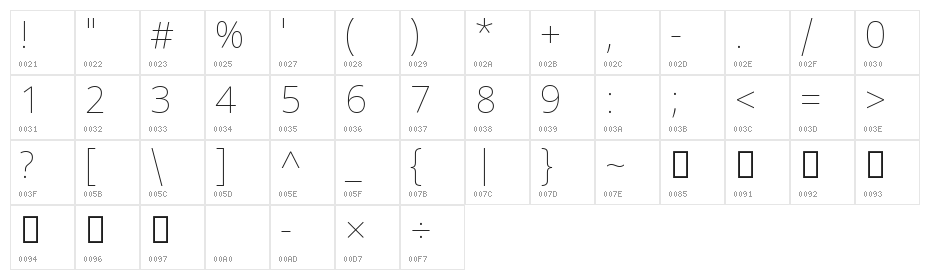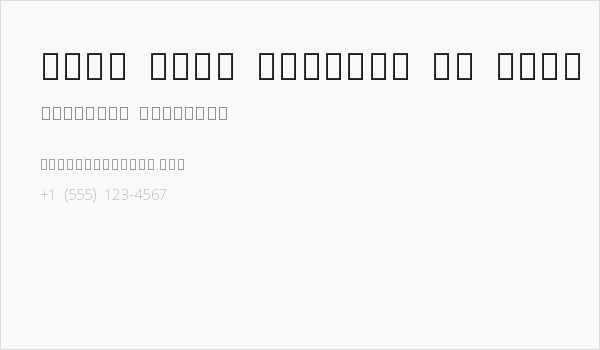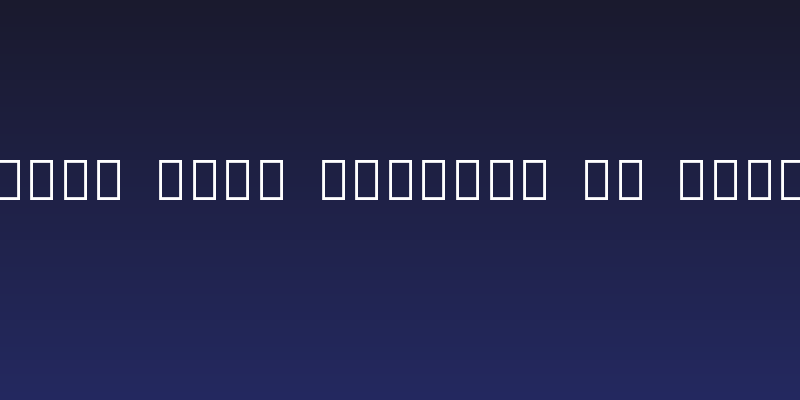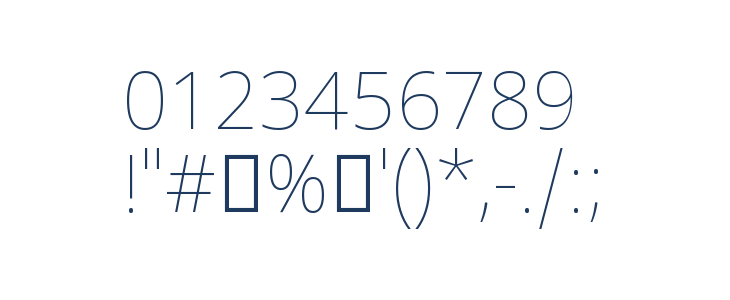
Noto Sans Sinhala UI Thin Font
Noto Sans Sinhala UI Thin Description
This font is a thin, modern sans-serif typeface characterized by its clean and minimalistic design. The strokes are uniform and consistent, providing a sleek and elegant appearance. The numerals and special characters maintain the same thin line weight, ensuring a cohesive look across all glyphs. The overall style is highly legible, making it suitable for digital interfaces and print media where clarity is essential. The font's simplicity and precision make it versatile for various applications, from user interfaces to branding materials.
| Proposed Projects | Ideal for user interfaces, digital content, branding, and print media requiring a sleek and modern appearance. |